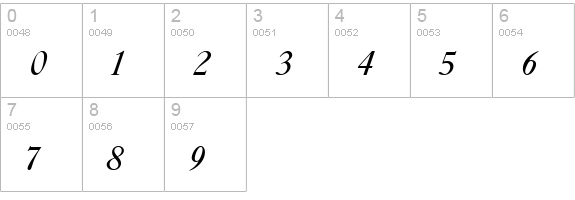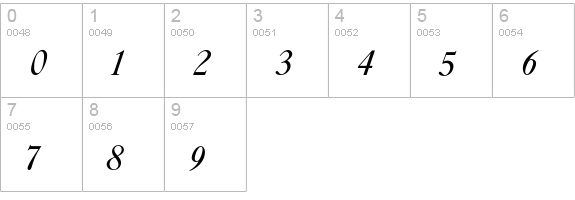
CaslonNo540D Italic is a distinctive, italic variant in the CaslonNo540D typeface family \xE2\x80\x94 well suited to design and typography projects.
CaslonNo540D Italic is a sophisticated and elegant font that exudes timeless charm and classic appeal. Its subtly slanted style adds a touch of flair and refinement to any text, making it perfect for use in luxury branding, editorial design, and formal invitations. The graceful curves and delicate serifs of this font give it a sense of traditional beauty that is sure to impress. What makes CaslonNo540D Italic even more appealing is that it is available for free download at FontsMarket.com. This means that you can easily access and use this stunning font in your projects without any cost. Whether you're working on a personal project or a professional design, CaslonNo540D Italic is a versatile choice that will elevate your work with its sophisticated aesthetic. Download it today and add a touch of timeless elegance to your designs.